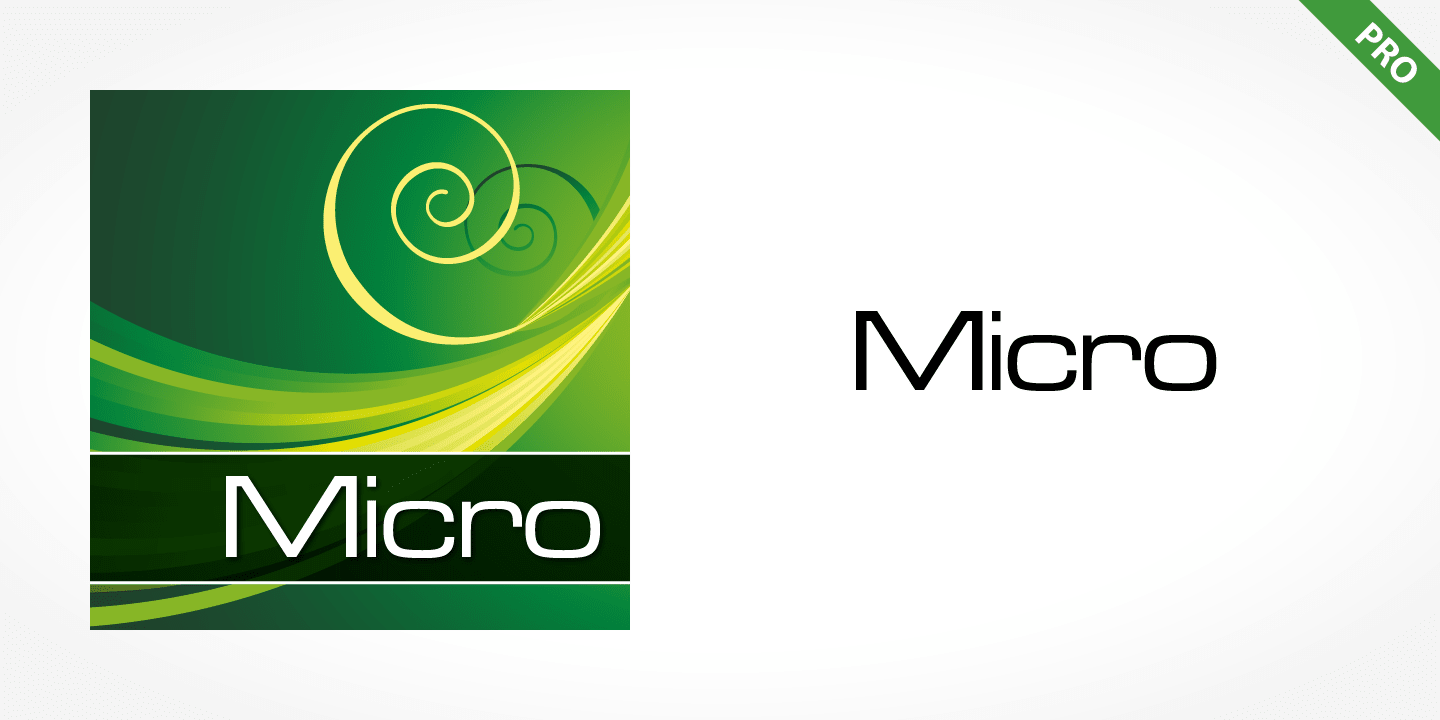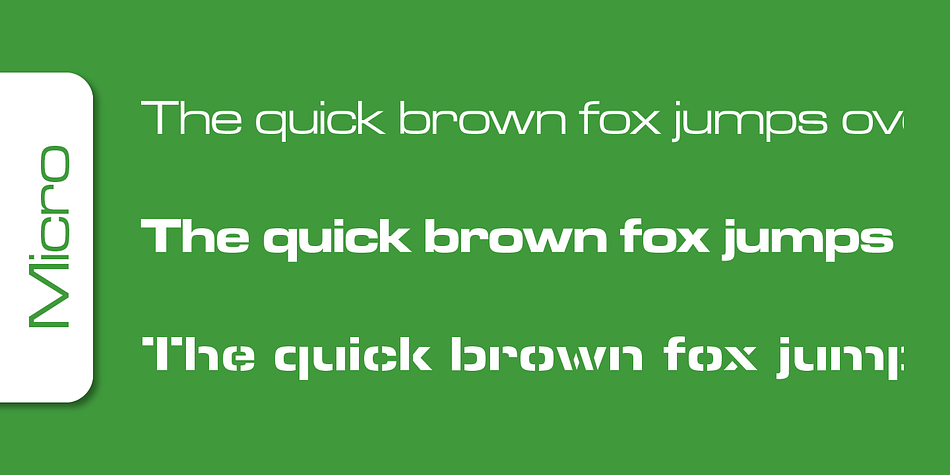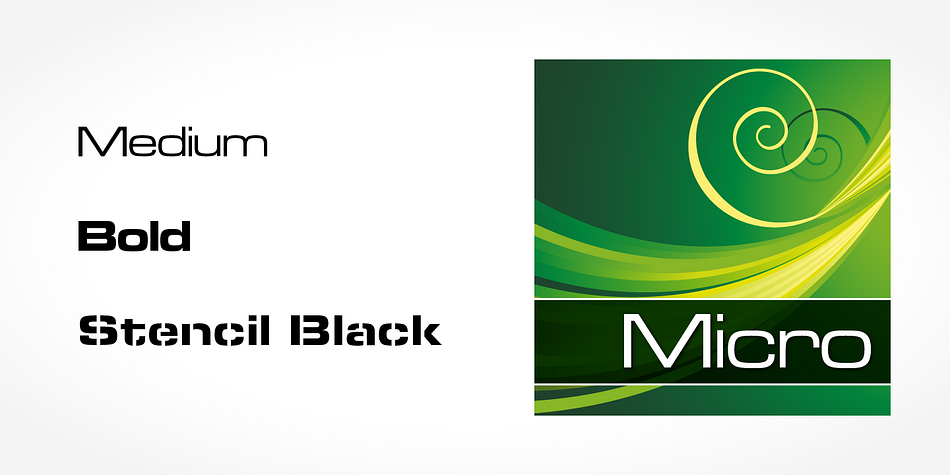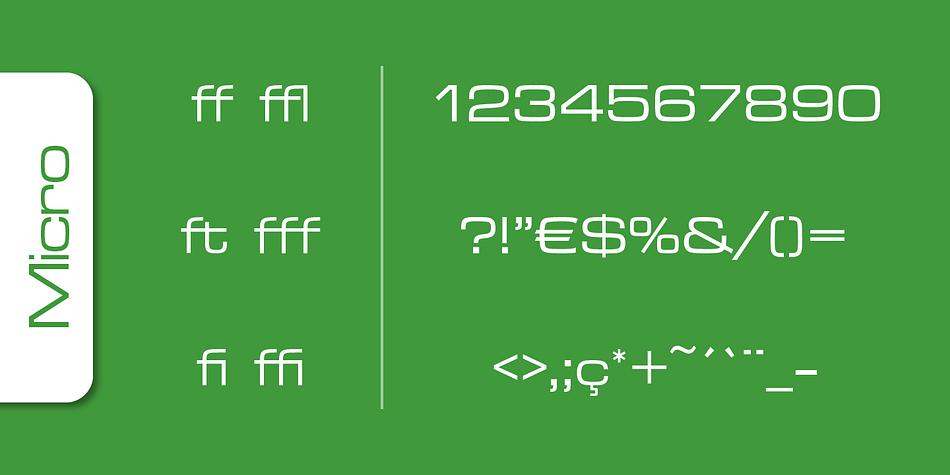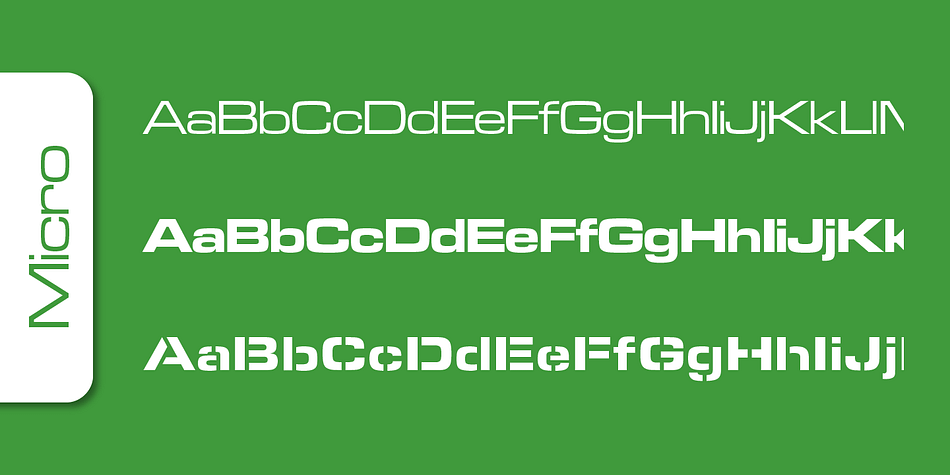
Micro Pro
Micro Pro is a display sans and stencil font family. This typeface has three styles and was published by SoftMaker.
Micro Pro is wide, almost like an extended font, and it has the typical look of 1950s industrial design. The font has been immensely popular as a display face ever since its original release. Use it in large sizes to help get your message across to readers.